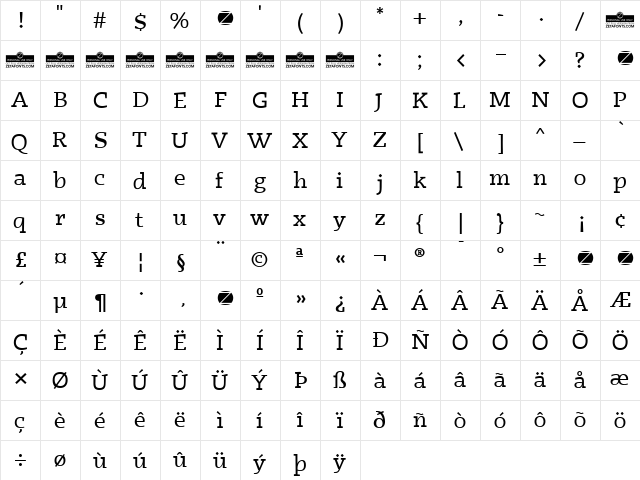
Radcliffe Casual Regular
| Foundry | Studio Kmzero |
| Designer | Cosimo Lorenzo Pancini |
Design Context for Radcliffe Casual Typeface
Radcliffe Casual offers clean, dependable letterforms without strong stylistic allegiance, making it a practical choice for designers who need flexibility.